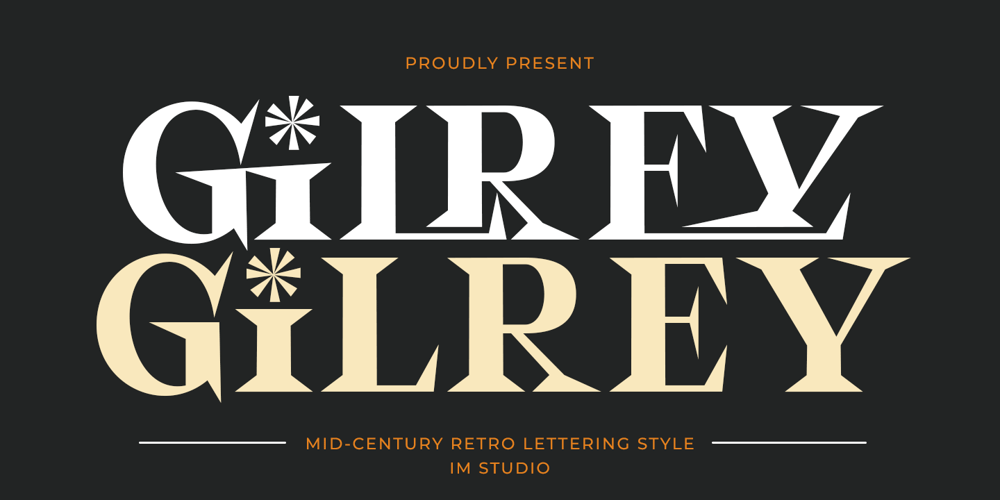
Gilrey Font Family was designed by Ikhsan Maulana and published by IM Studio. Gilrey contains 2 styles and family package options. Gilrey i is a mid century & retro style font. Its perfect for your display or product designs such as shirts, poster designs, stickers, logos, branding, greeting cards, Cricut projects, posters, magazines, social media, planner prints and websites.